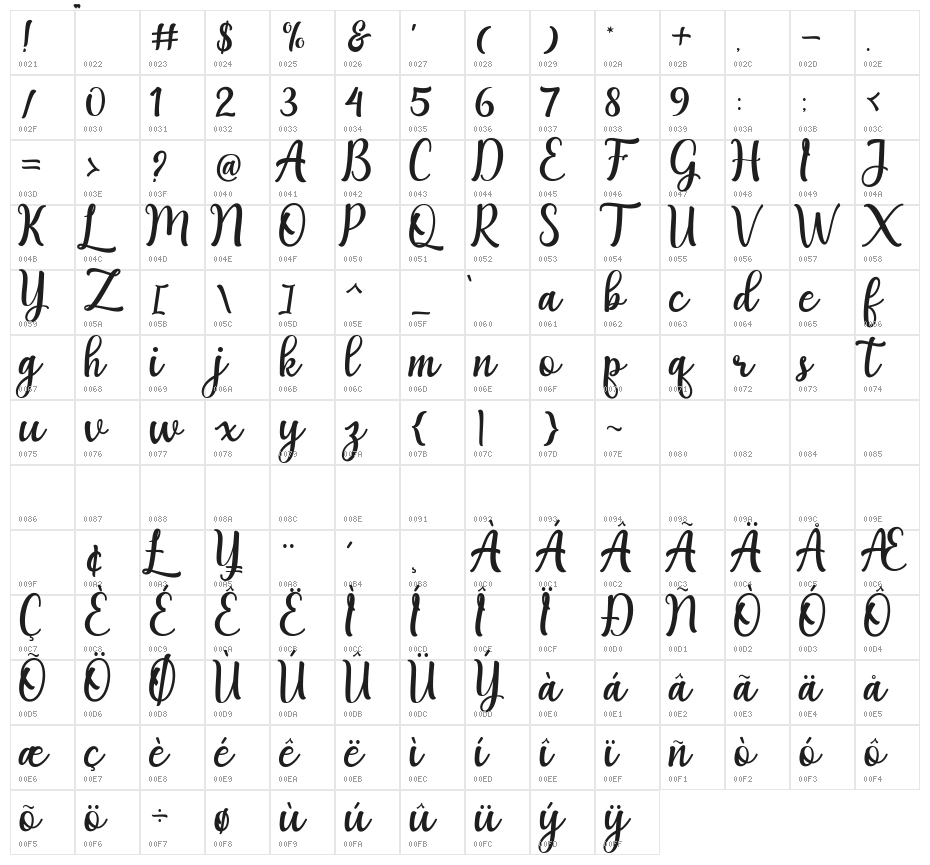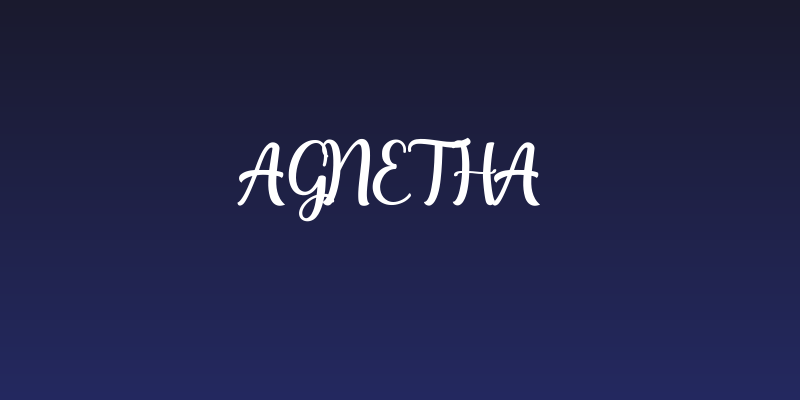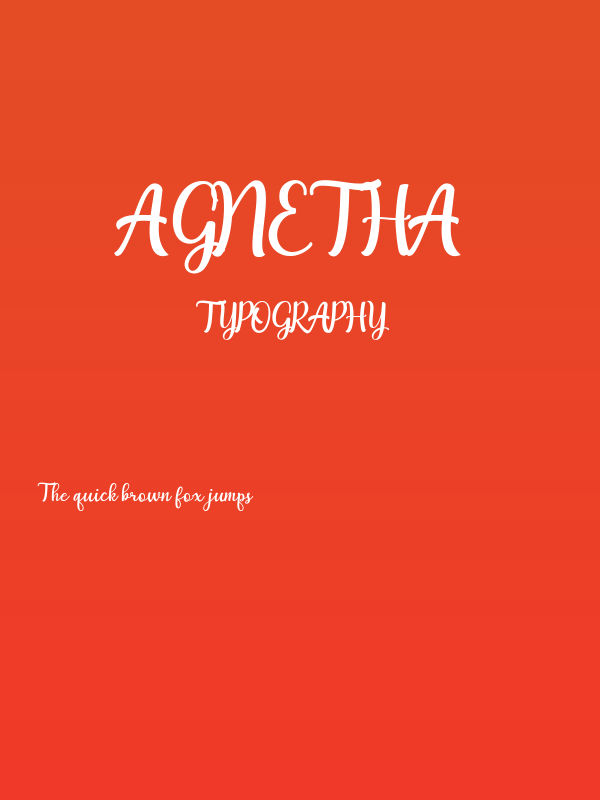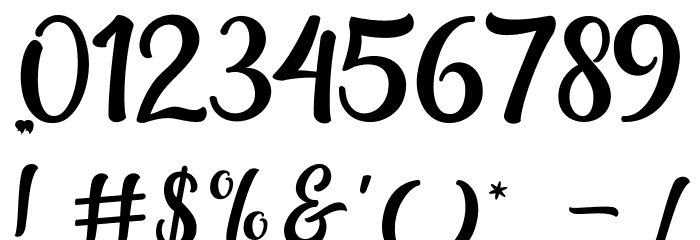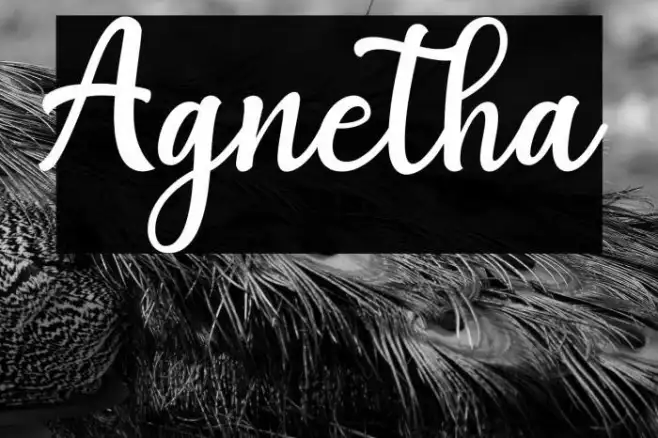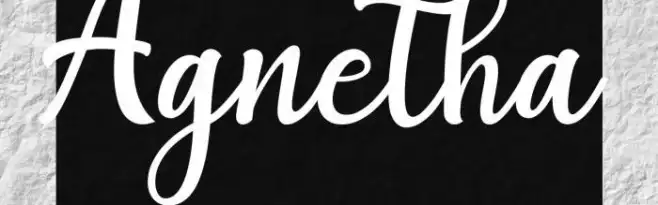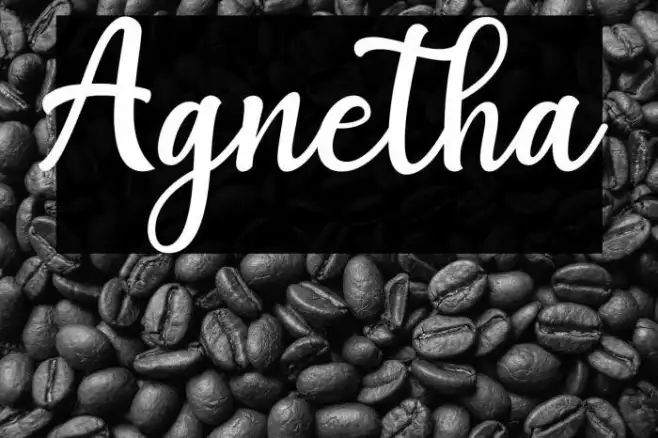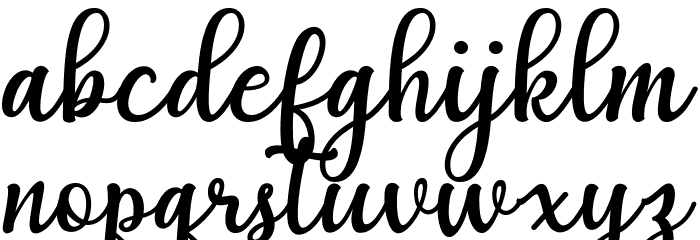
Agnetha Font
Agnetha Description
This font exudes a lively and expressive character with its flowing, cursive style. The letters are interconnected, creating a seamless and elegant appearance. The uppercase letters are bold and slightly exaggerated, while the lowercase letters maintain a consistent flow with gentle curves and loops. The numbers are distinct and easy to read, complementing the overall style. Special characters are crafted with the same attention to detail, adding to the font's versatility. This font is perfect for projects that require a personal touch or a sense of elegance and sophistication.